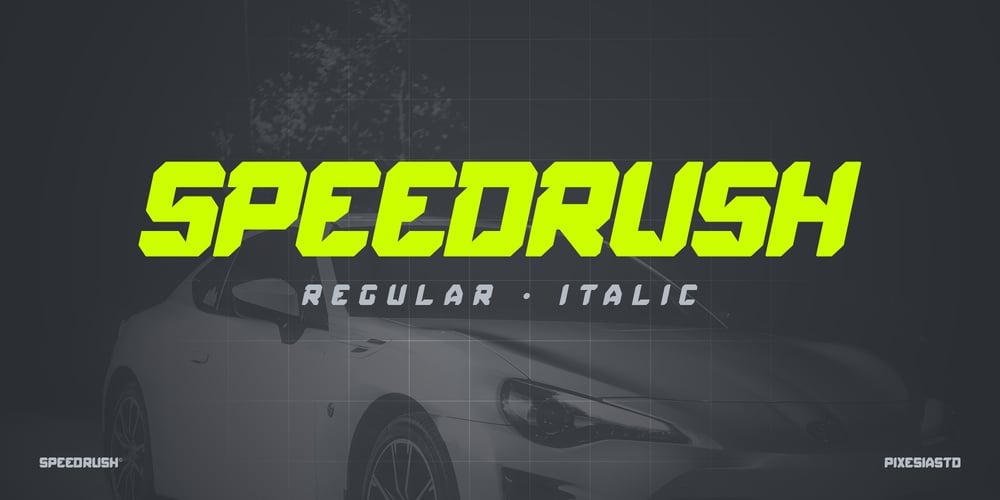
Speed Rush
Speed Rush font
Speed Rush Font Family was designed by Abul Almaududi and published by Pixesia Studio. Speed Rush contains 2 styles and family package options. Speed Rush – A Race Display FontSpeed Rush is an assertive and modern display font that oozes strength and toughness. It suits perfectly any racing theme or online game. Have fun with this beautiful font and explore its endless variations.FEATURES- Uppercase and Lowercase letters- Numbering and Punctuations- Multilingual Support- Works on PC or Mac- Simple Installation- Support Adobe Illustrator, Adobe Photoshop, Adobe InDesign, also works on Microsoft WordHope you Like it.Thanks.